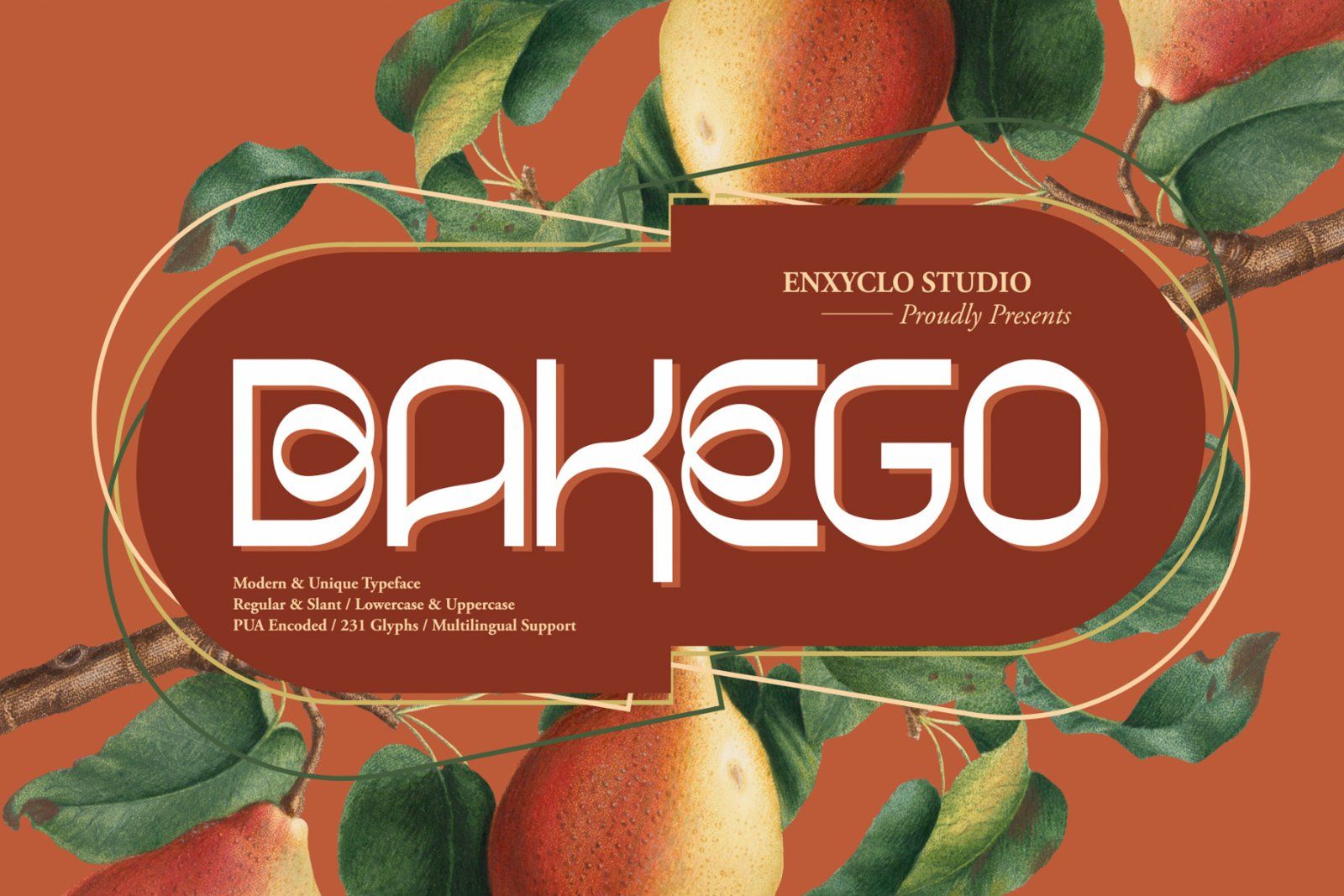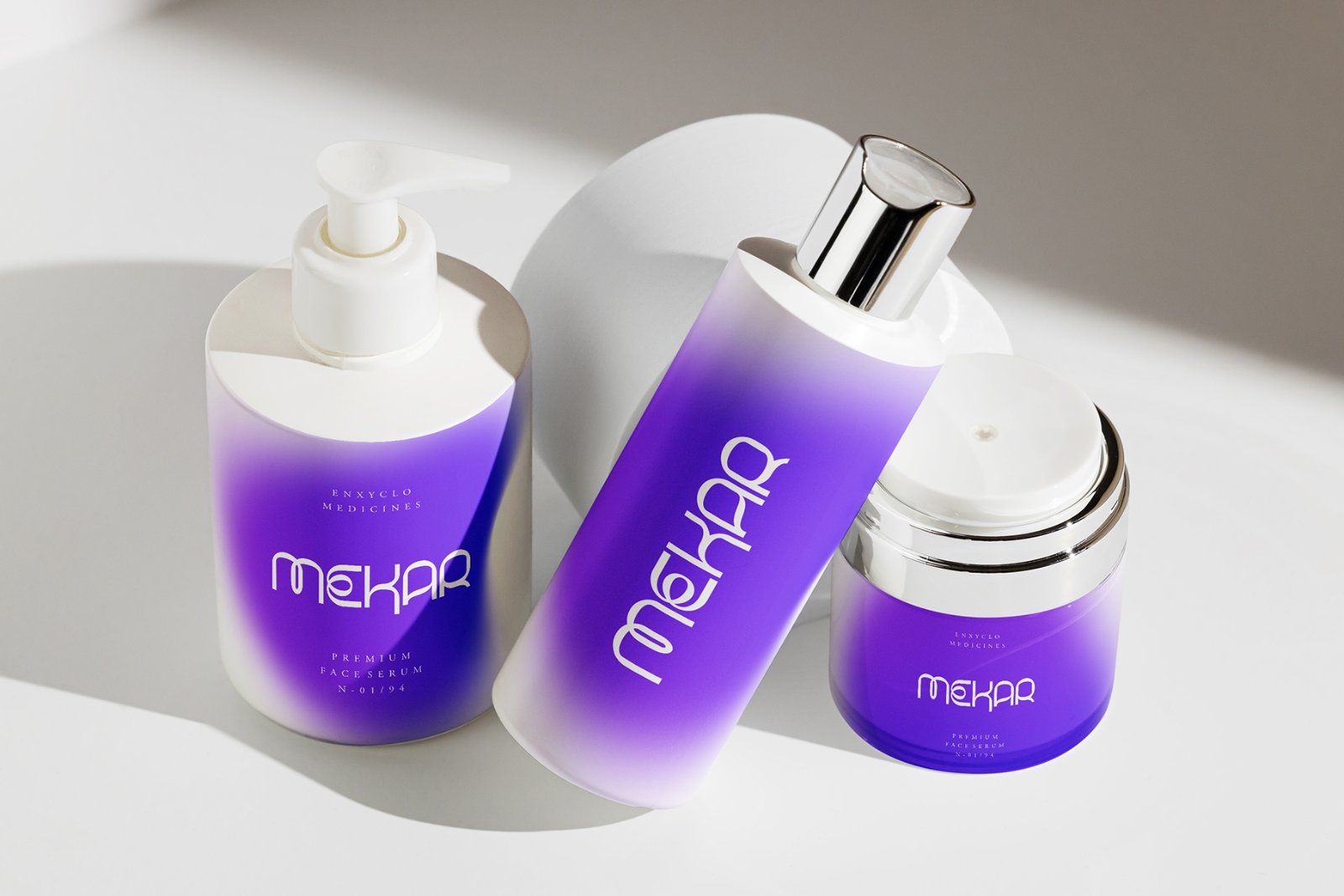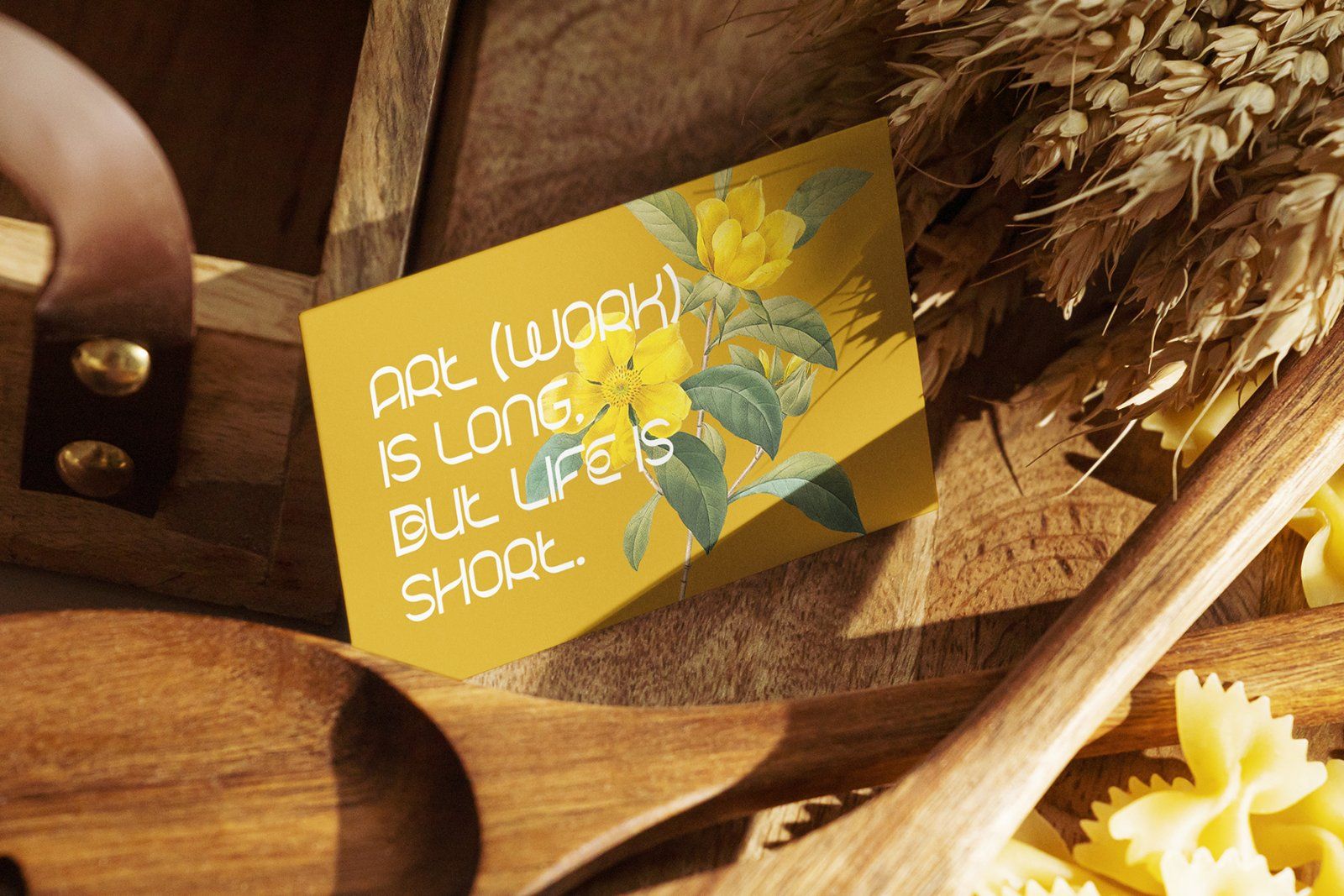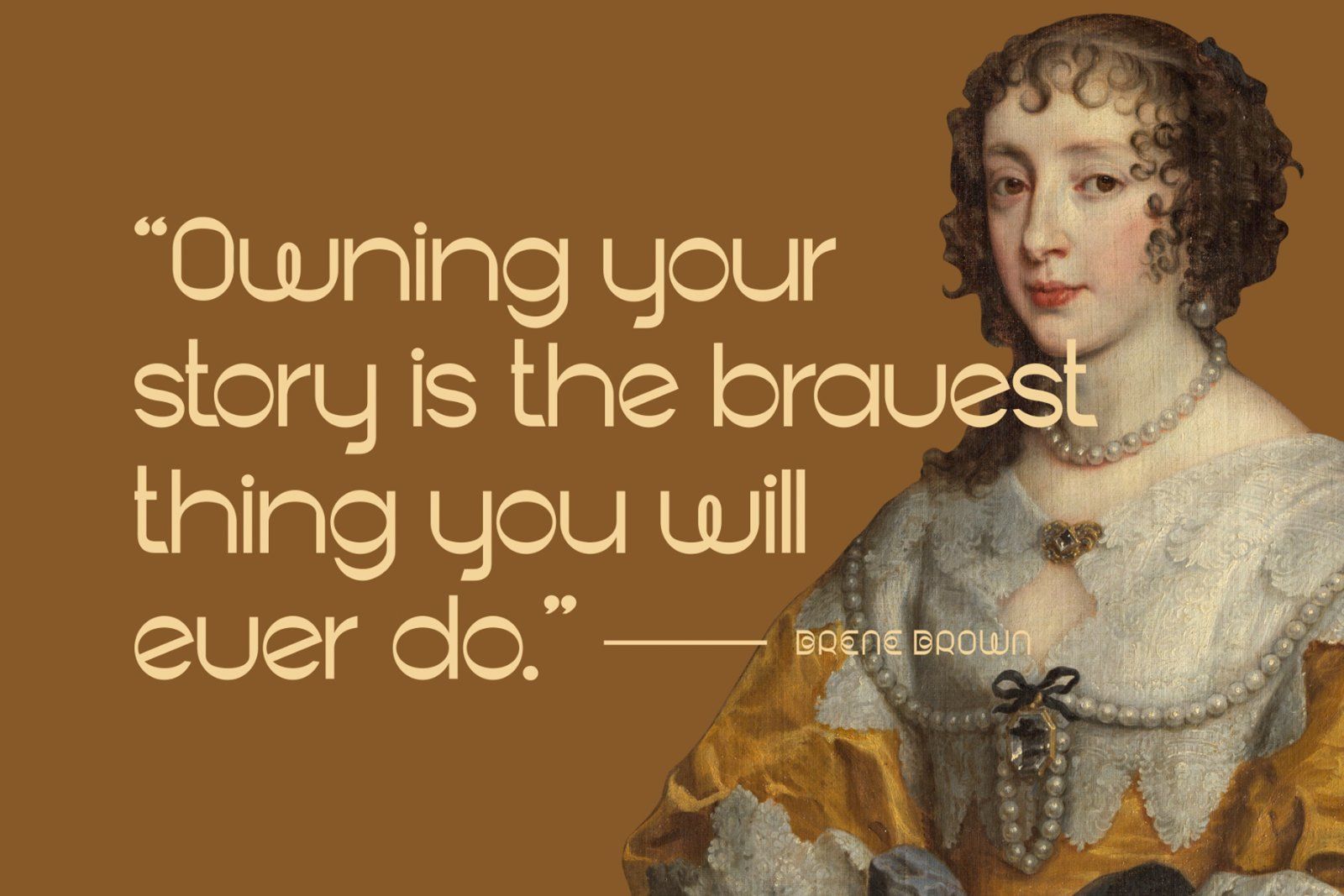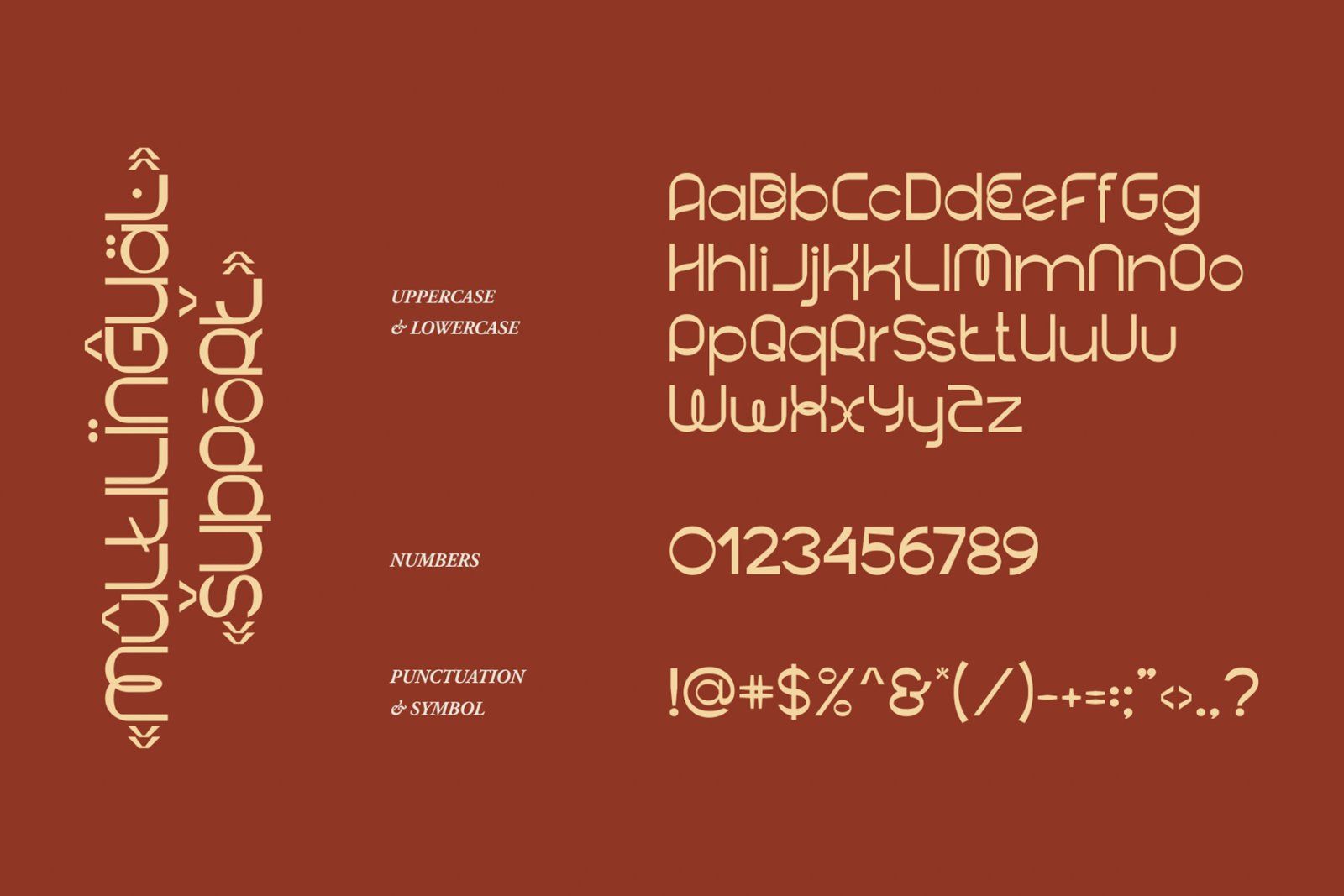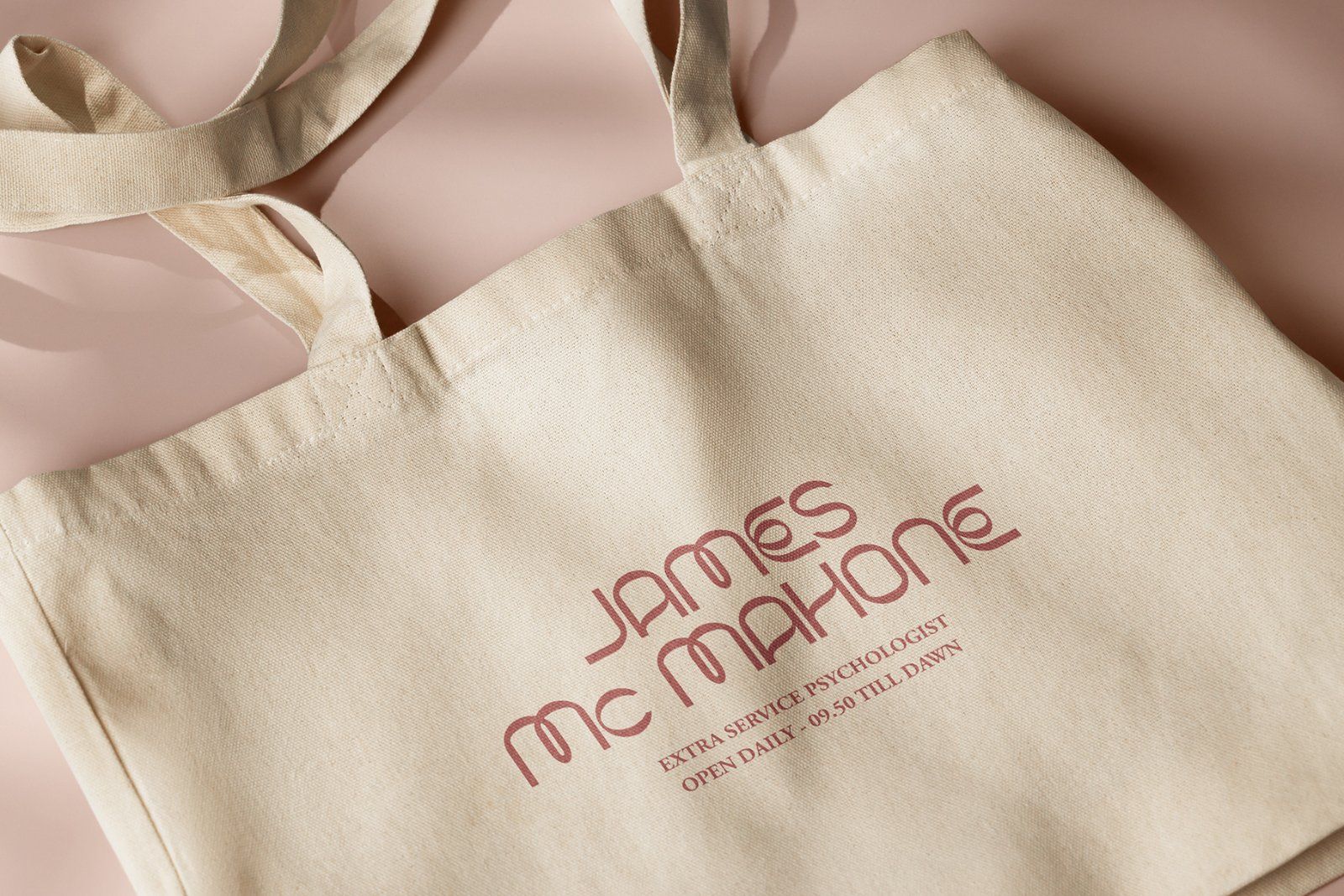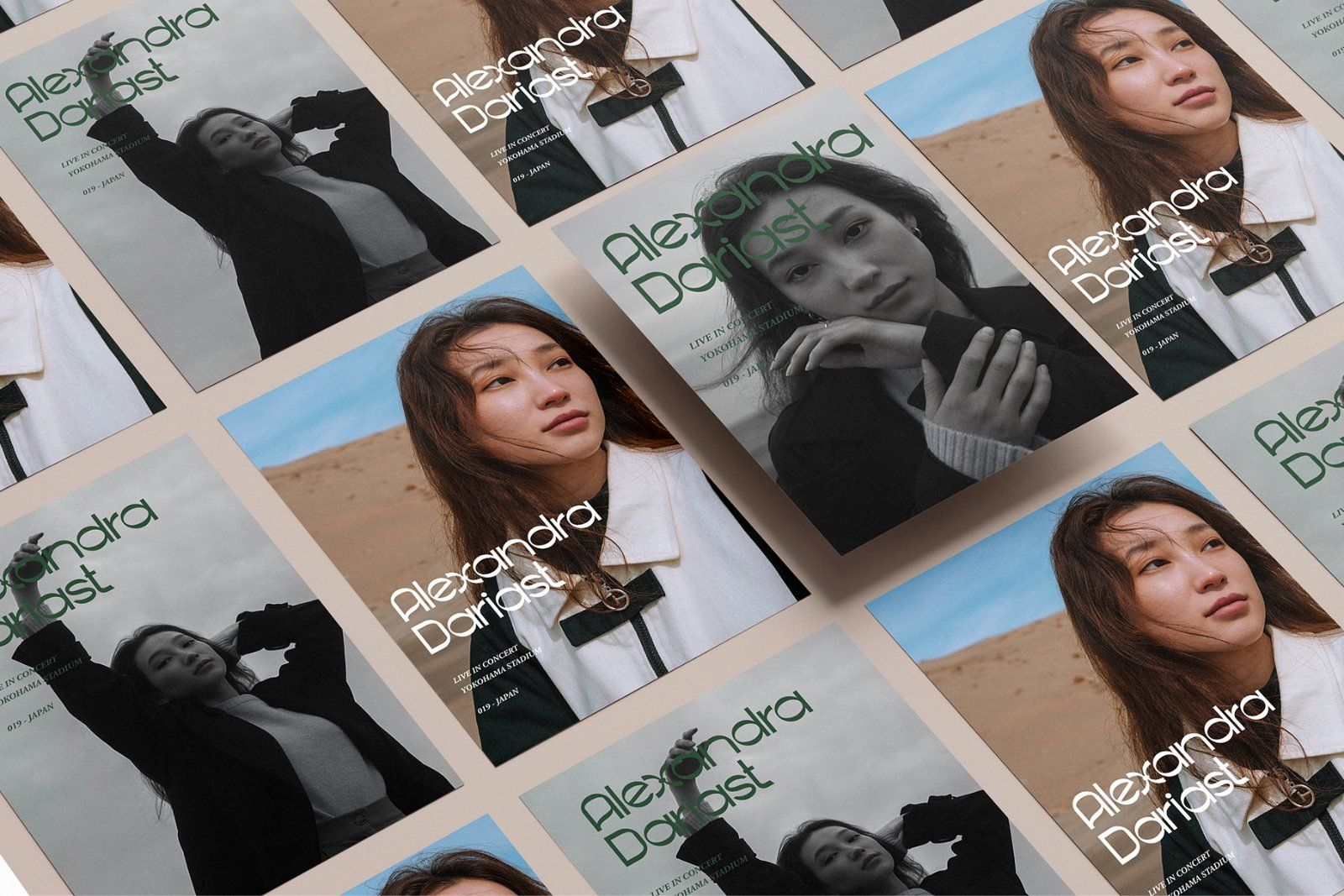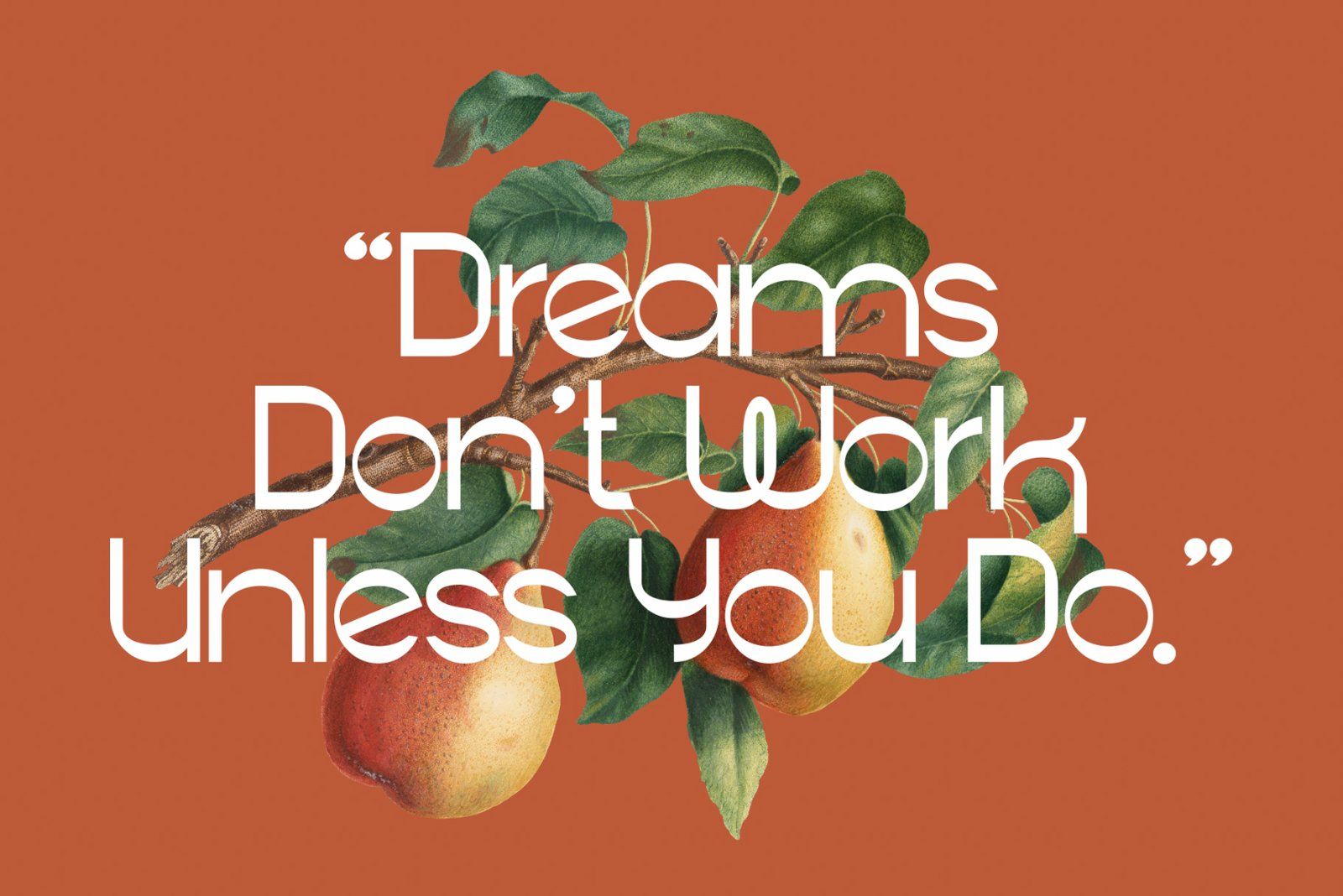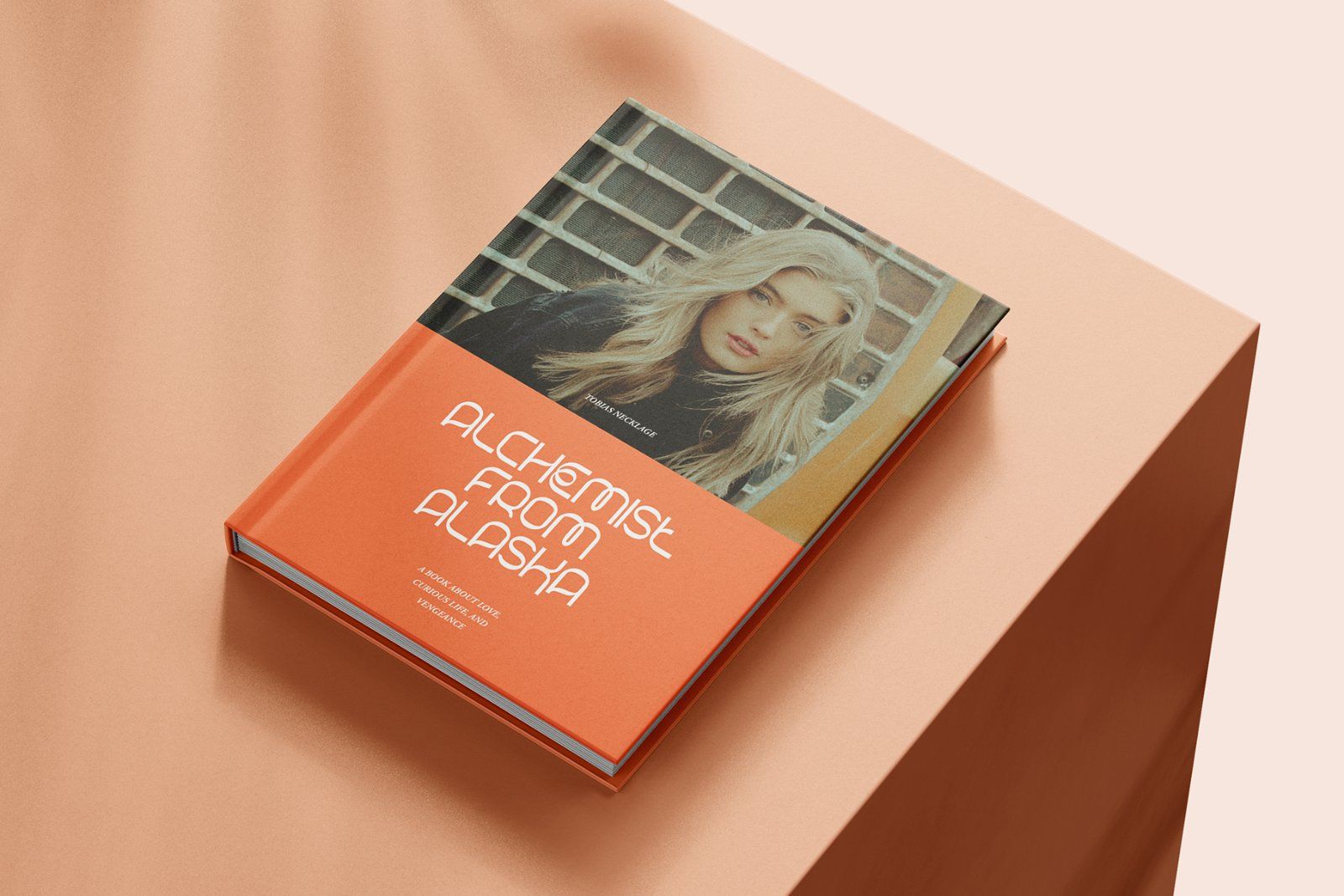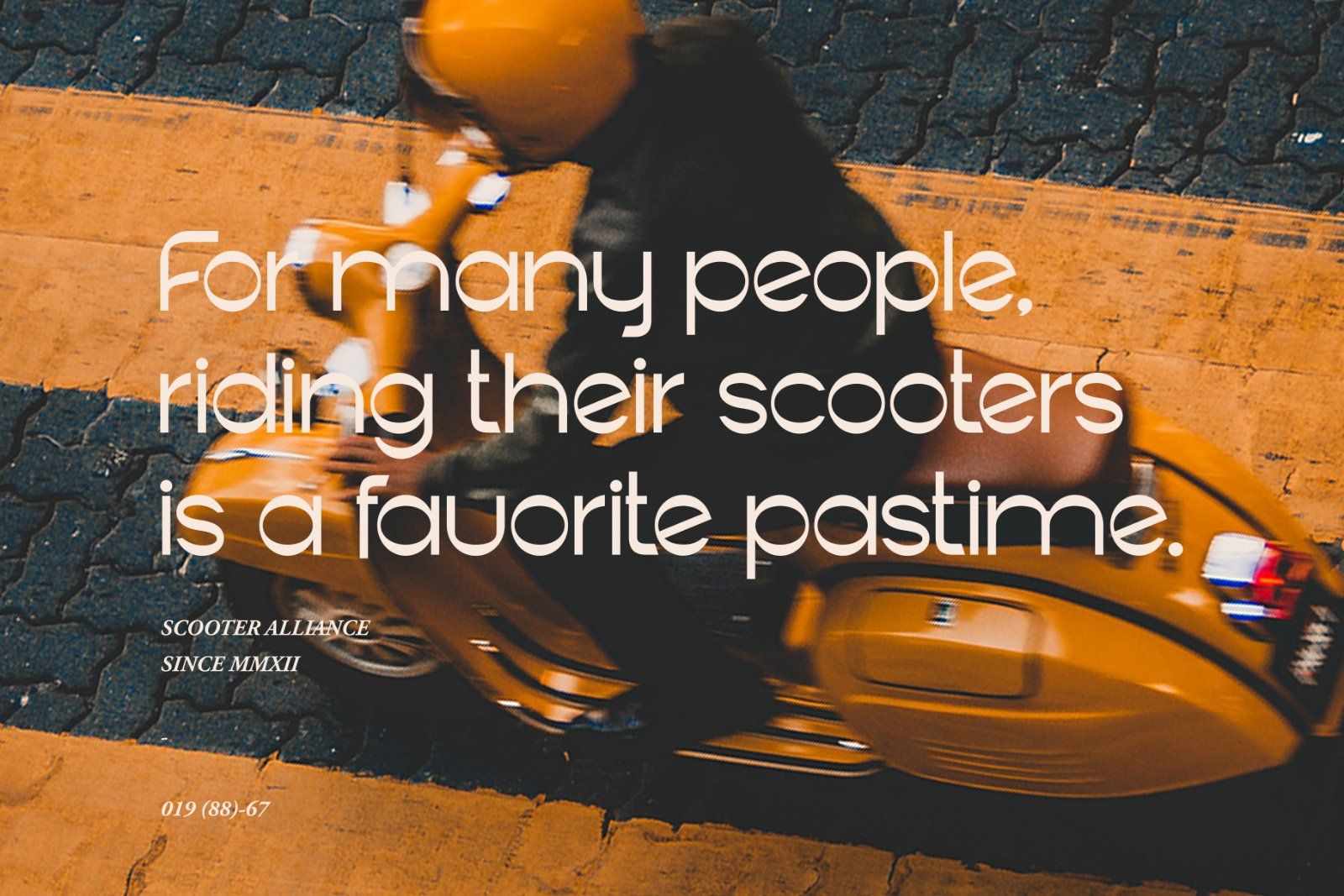
BAKEGO is is a fun, unique and modern display font. Masterfully designed to become a true favorite, this font has the potential to bring each of your creative ideas to the highest level! It was purposely crafted to be used in large point sizes, although it doesn’t lose its magic in small point sizes.
• 2 Styles: Regular & Slant
• Contains 231 Glyphs for Each Style (Total: 462 Glyphs)
• Uppercase, Lowercase, Numeral, Punctuation & Symbol
• Multilingual Support.